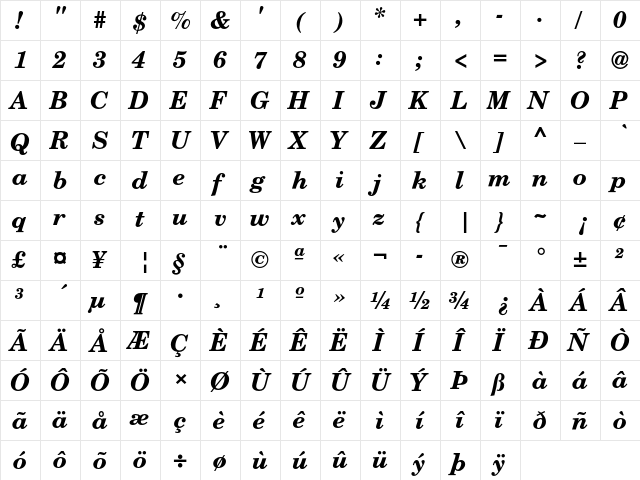
TeX Gyre Schola Bold Italic Font Preview
Design Context for TeX Gyre Schola Typeface
TeX Gyre Schola takes a measured approach to typography — its balanced proportions and neutral character make it a reliable workhorse for both digital and print work. The dynamic lean of this cut emphasises speed and emphasis in any layout. Its bold stroke weight gives it real presence on the page.
Pro Tip: Try TeX Gyre Schola for annotation and caption copy alongside an upright companion — the contrast in angle creates a dynamic but ordered typographic system.